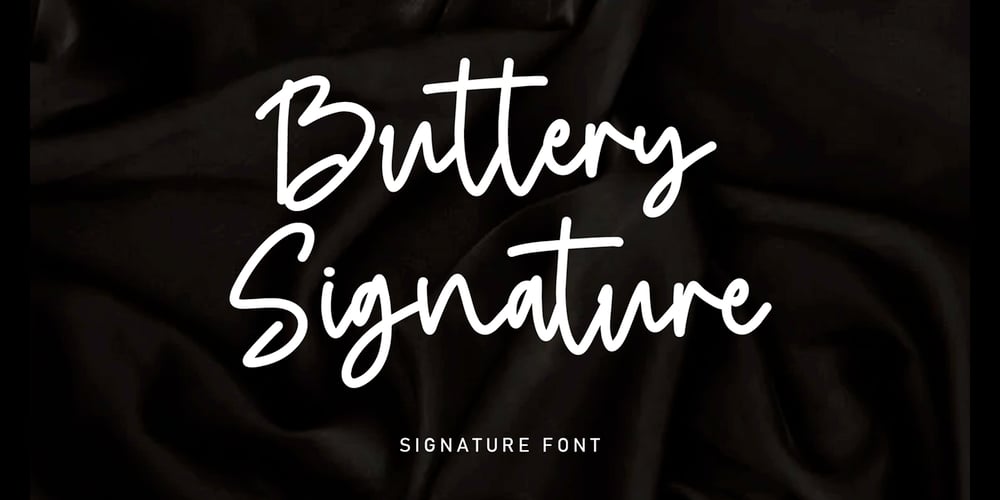
Buttery Signature
Buttery Signature font
Buttery Signature Font Family was designed by Rizal Aiyub and published by Fontysia. Buttery Signature contains 1 styles and family package options. Buttery Signature is a unique and elegant monoline font, this font was created by being inspired by a signature by someone, then developed into a work that can be used by many people.It comes with an elegant and unique style which is perfect to make any design stand out! This font is perfect for branding, wedding invites, magazines, mugs, business cards, quotes, posters, and more.